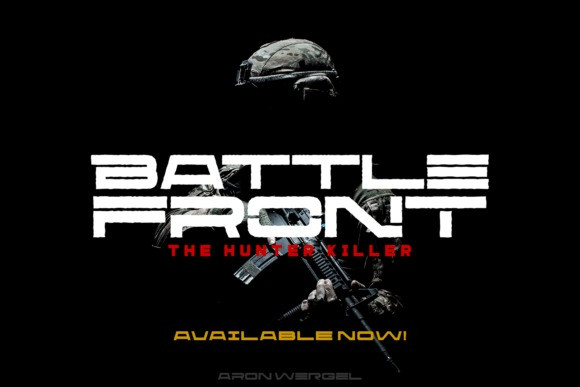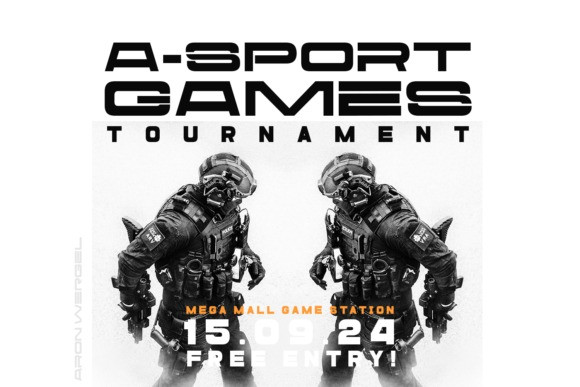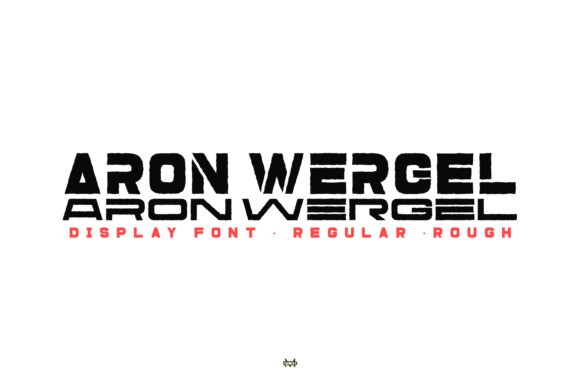
Aron Wergel Font
Aron Wergel Font is a futuristic display font. It allows for the use of multiple options when designing, adapting to different composition solutions. Use this font for branding, product packaging, invitations, quotes, headlines, labels, posters and more.